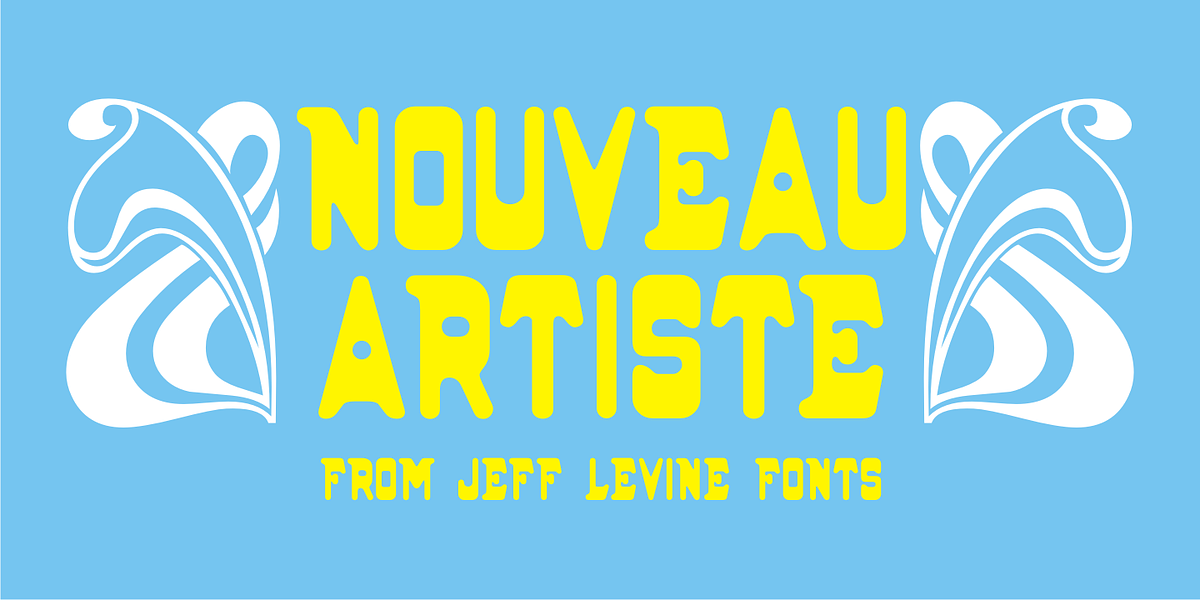
Nouveau Artiste JNL
A sheet music edition of an early 1900s song entitled "You Taught Me How to Love You, Now Teach Me to Forget" was hand lettered in a free-form Art Nouveau style that combined varying line widths and character shapes.
This unrestricted style of lettering was popularly embraced and revived by the hippie counterculture of the mid-1960s through the mid-1970s through their rock concert posters, record album covers and tee shirt graphics.
It is now available digitally as Nouveau Artiste JNL.
As a side note, a 1940s reprint of the sheet music was done in a popular metal typeface, which was also redrawn digitally and available as Elite Resort JNL [in both regular and oblique versions].